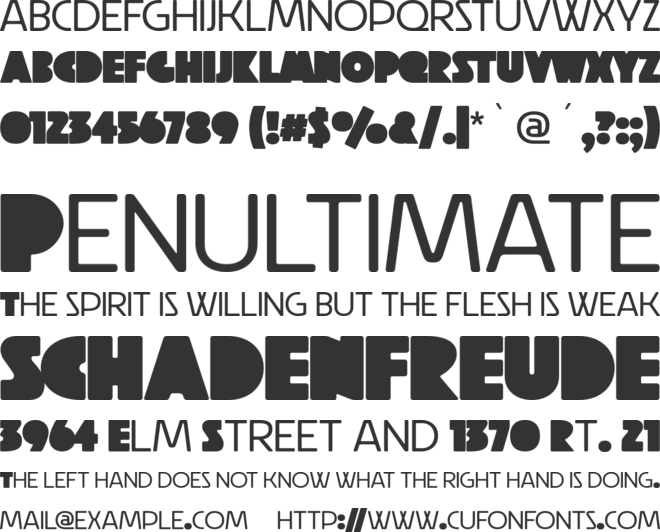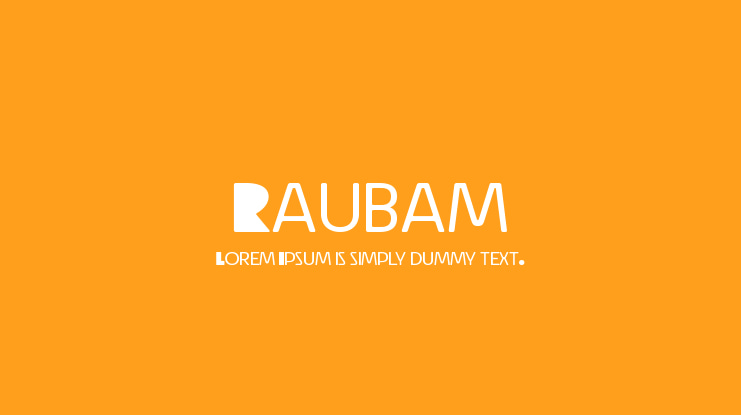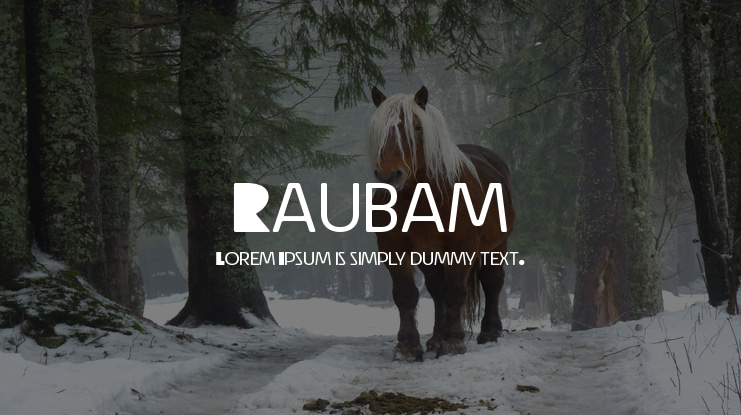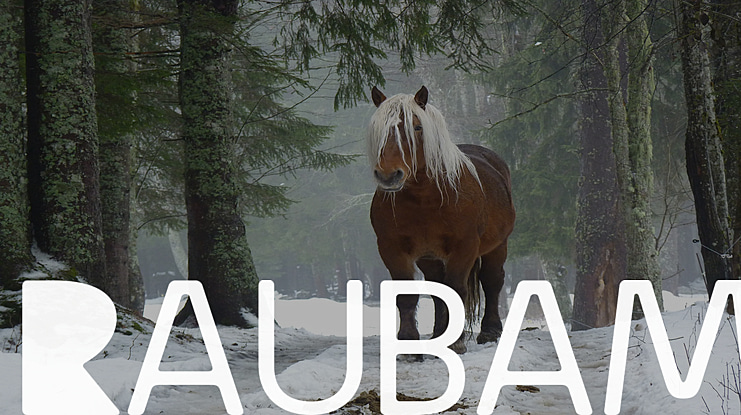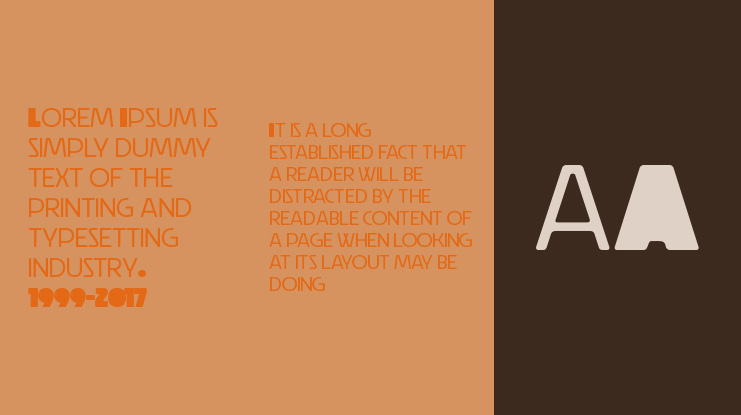
Raubam is a single weight, display typeface that was inspired by the bold lettering found in monument engravings. But this simple typeface actually contains two variations in letterform to replace the standard uppercase or lowercase forms. With this font, the uppercase forms are extremely bold, heavy letterforms that verge on being closer to forms than letters. However the lowercase forms are a lighter, more balanced version of the same letters that can therefore be combined with the titling style to create interesting layout and combinations. To allow the most possible solutions, each style has matching punctuation and numbers that are automatically substituted thanks to Opentype programming.